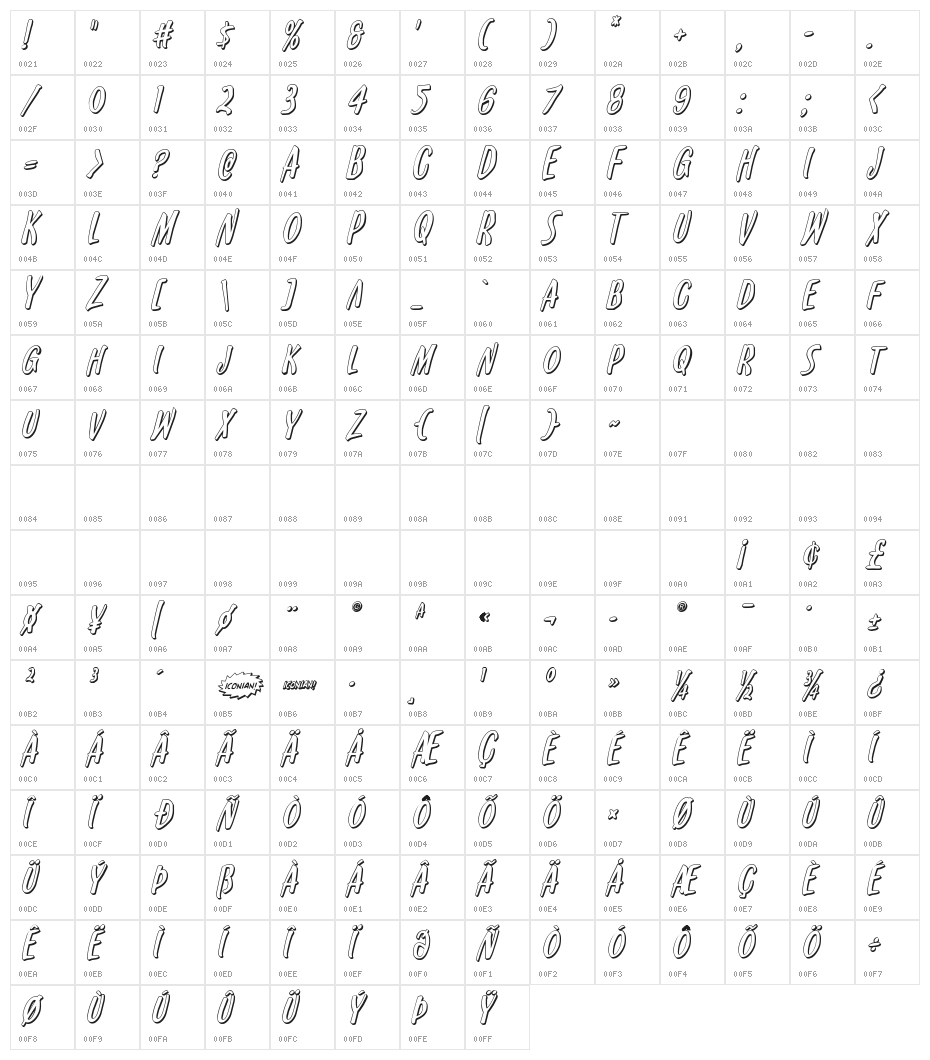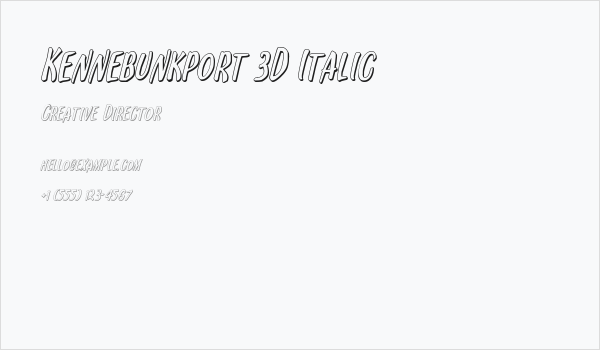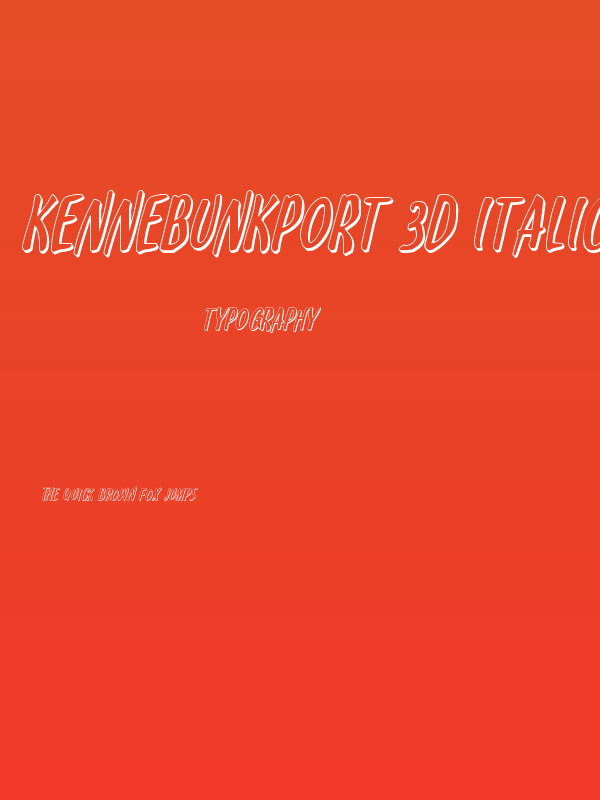
Kennebunkport 3D Italic Font
Kennebunkport 3D Italic Description
This font features a dynamic and playful 3D italic style, characterized by bold, slanted letters that convey a sense of movement and energy. The uppercase and lowercase letters are designed with a consistent slant, giving the font a cohesive and lively appearance. The numerals and special characters maintain the same energetic style, making them suitable for a variety of creative applications. The font's 3D effect adds depth and dimension, making it stand out in any design. Its bold strokes and italicized form make it perfect for projects that require a touch of excitement and flair.
| Proposed Projects | Ideal for posters, logos, headlines, and any design that needs a lively and energetic touch. |